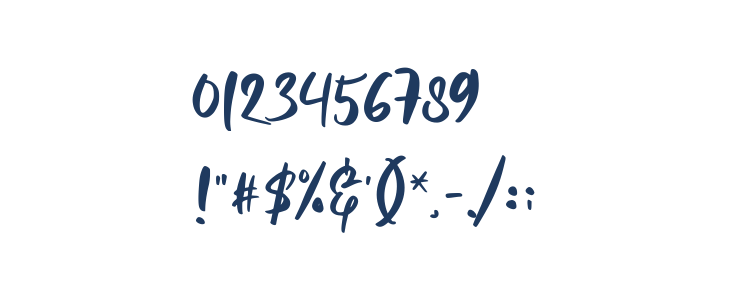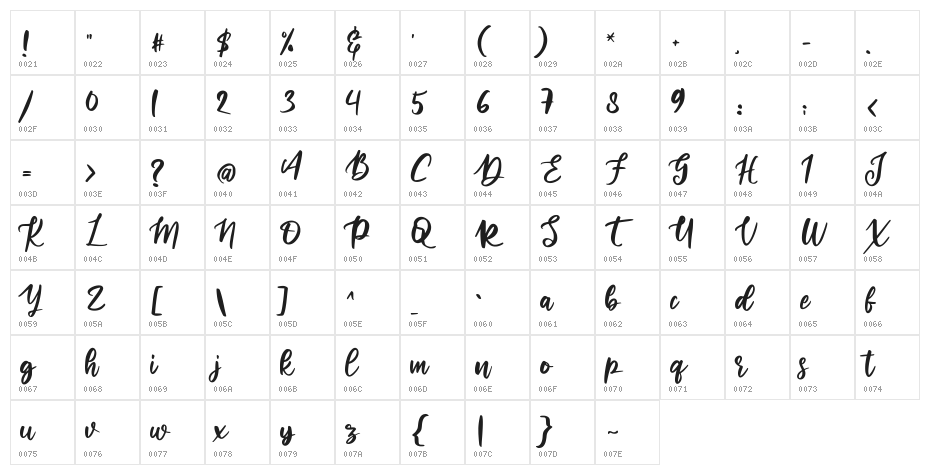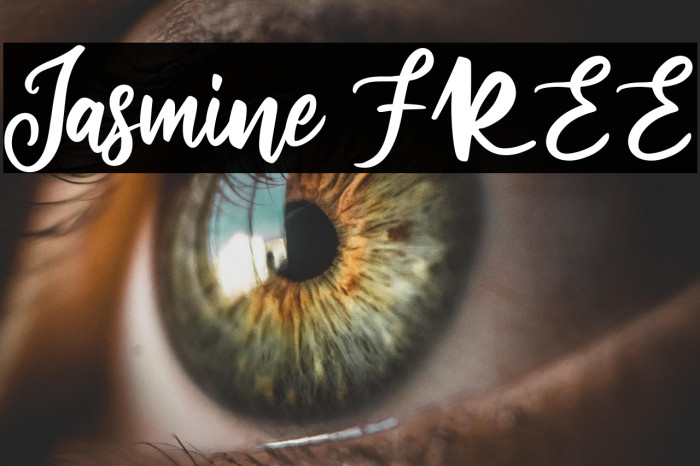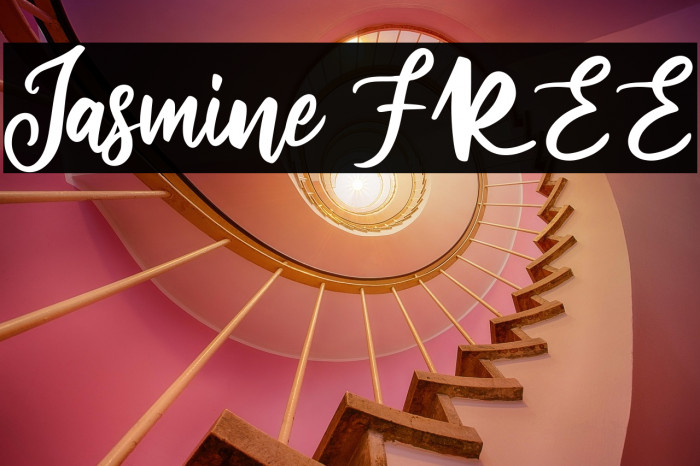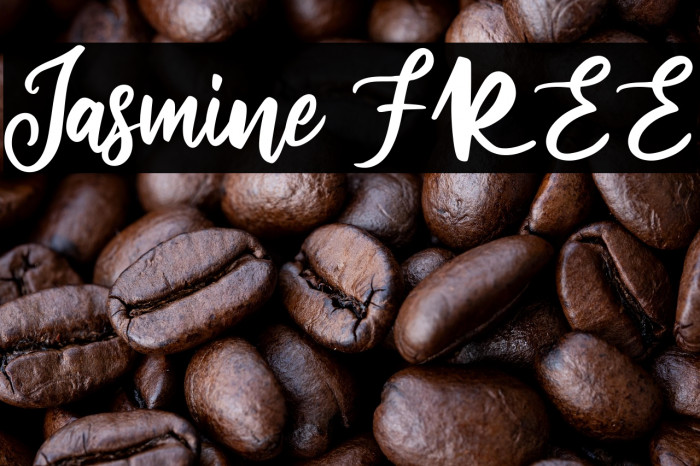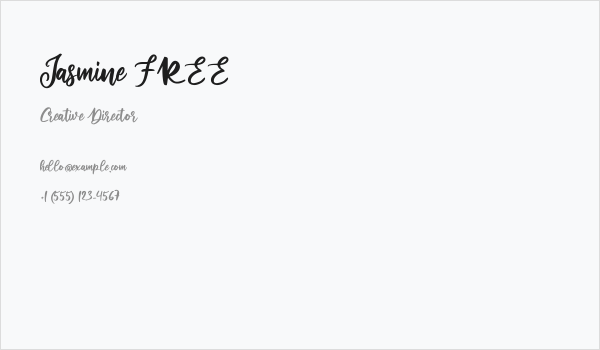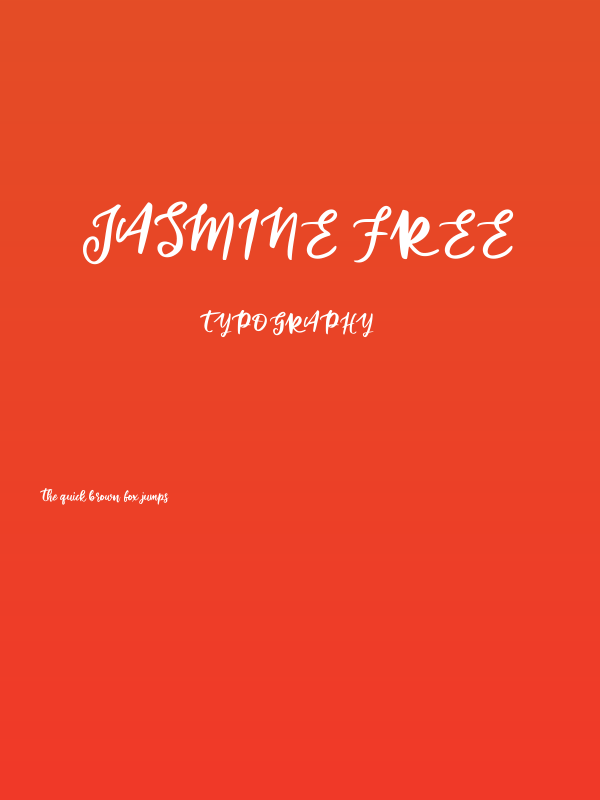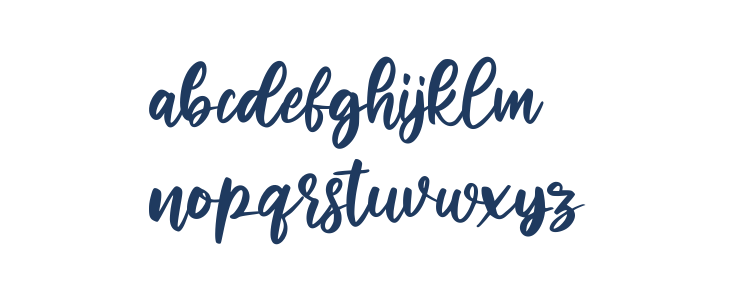
Jasmine FREE Font
Jasmine FREE Description
This font exudes a lively and expressive character with its bold, flowing script style. The letters are crafted with a sense of movement and fluidity, making it ideal for designs that require a touch of elegance and personality. The uppercase letters are particularly striking, with their sweeping curves and dynamic forms. The lowercase letters maintain a consistent style, complementing the uppercase with their own graceful loops and strokes. Numbers and special characters are designed to match the overall aesthetic, ensuring a cohesive look across all text elements. This font is perfect for projects that aim to convey a sense of creativity and flair.